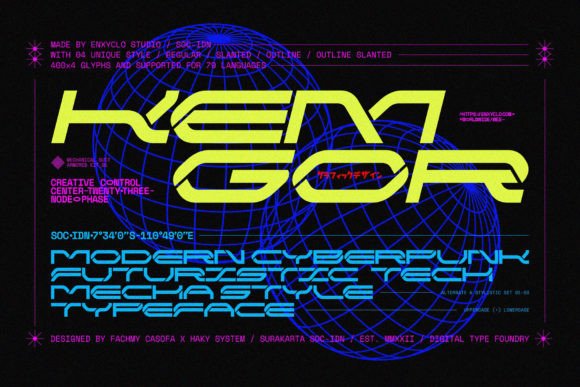
Introducing Kemgor Font, the ultimate choice for all your gaming font needs. Created by the talented designer Enxyclo, this cyberpunk futuristic techno mecha font is guaranteed to elevate your creativity and take your designs to new heights.
With Kemgor Font, you no longer have to settle for ordinary fonts. Its unique and captivating aesthetics bring a whole new dimension to your projects, making them truly stand out in the crowd. Whether you're designing a website, poster, logo, or any other creative endeavor, this font effortlessly adds innovation and sophistication.
Imagine the impact your gaming website will have with Kemgor Font's bold and edgy appearance. It instantly transports your visitors into a futuristic world, captivating their attention and immersing them in the gaming experience. From first impressions to user interface elements, this font ensures your website is a visual masterpiece.
But it doesn't stop there. Kemgor Font is also perfect for posters that demand attention. Its sleek and vibrant style commands the viewer's gaze, making your message impossible to ignore. Whether you're promoting an event, a product, or simply want to make a statement, this font amplifies your message and leaves a lasting impression.
When it comes to logos, Kemgor Font is a game-changer. Its sharp, angular lines and modern design represent the cutting-edge nature of your brand. By incorporating this font into your logo, you instantly convey a sense of innovation, technology, and forward-thinking. Your customers won't be able to resist the allure of your brand.